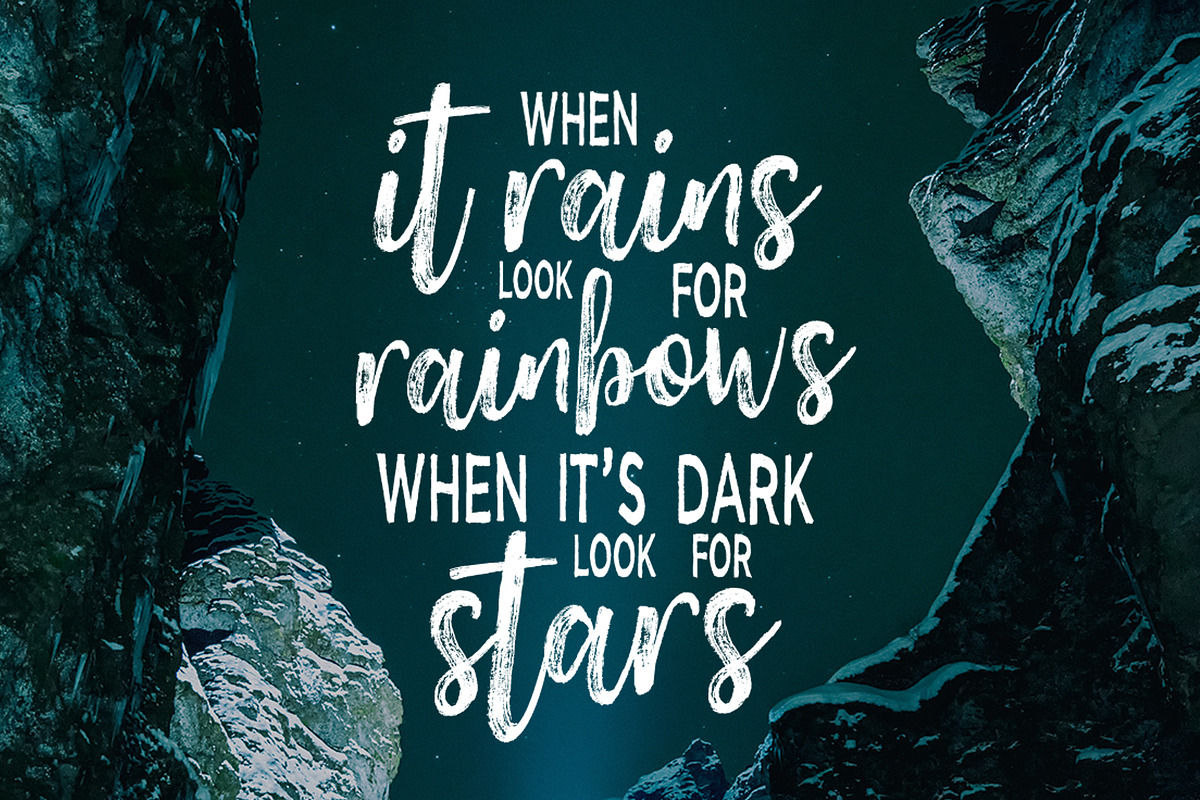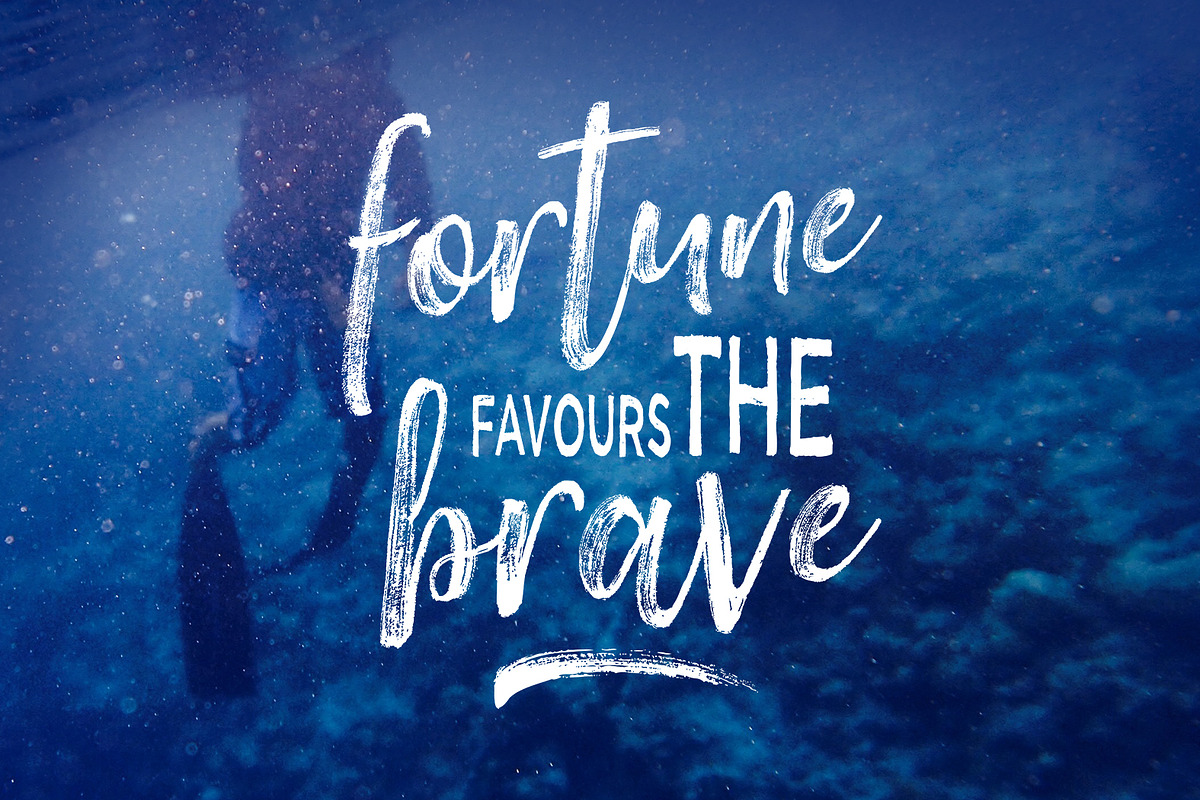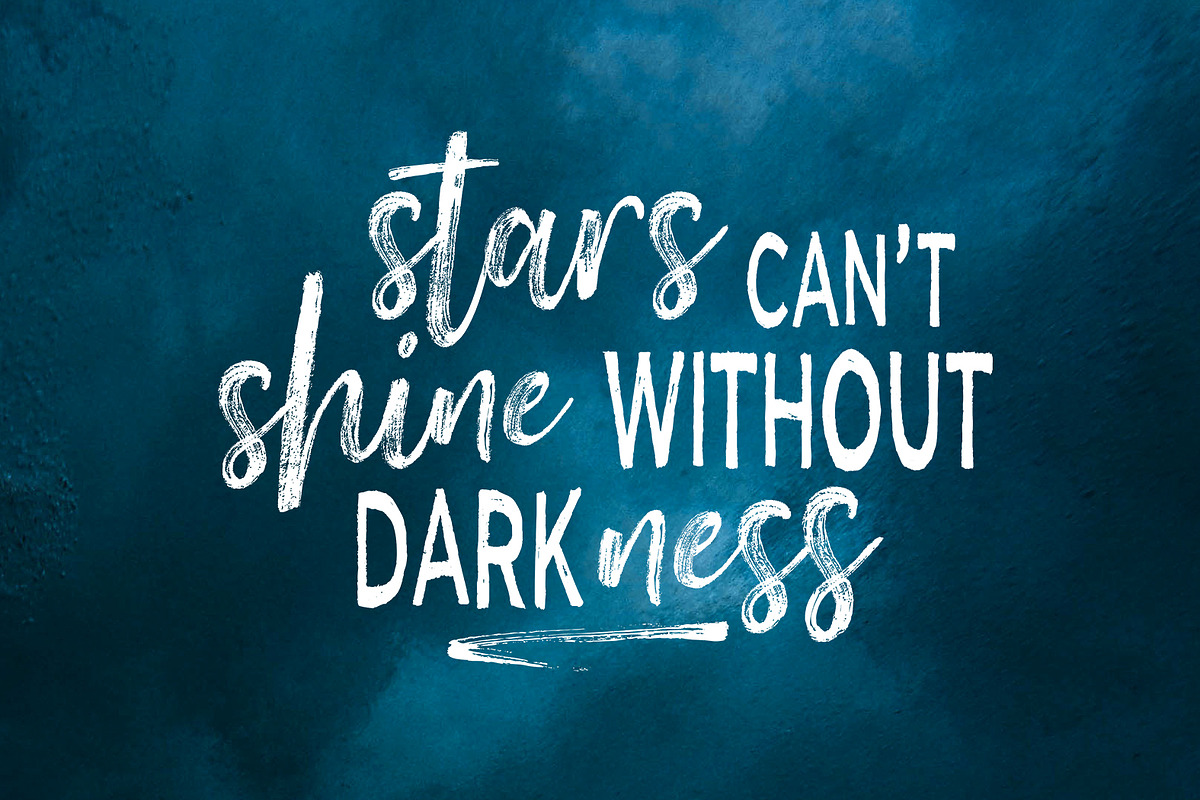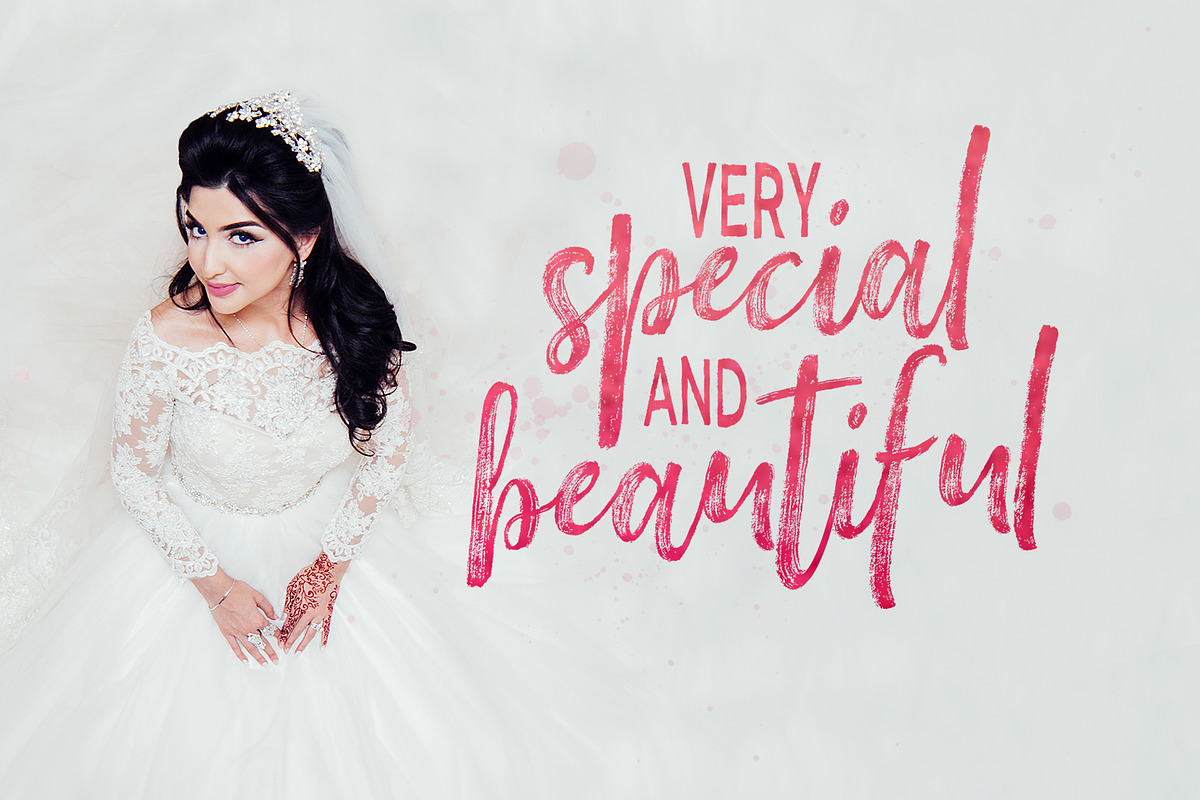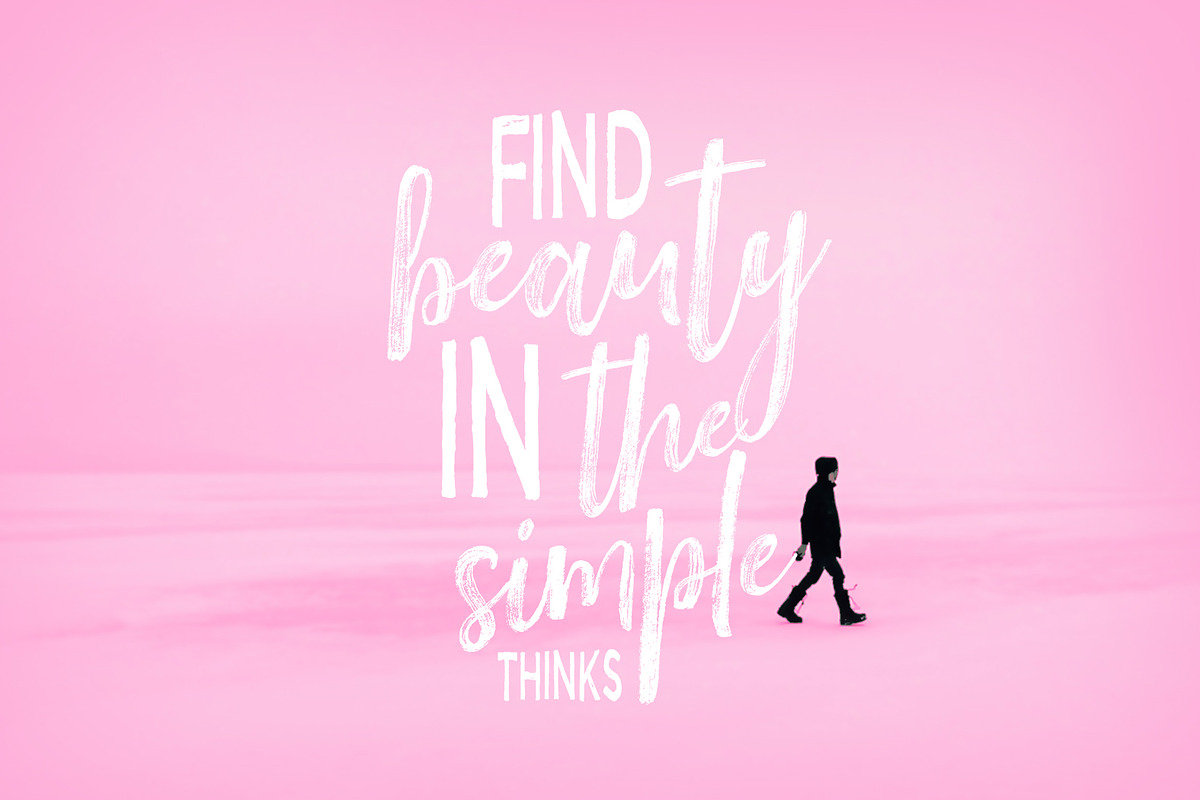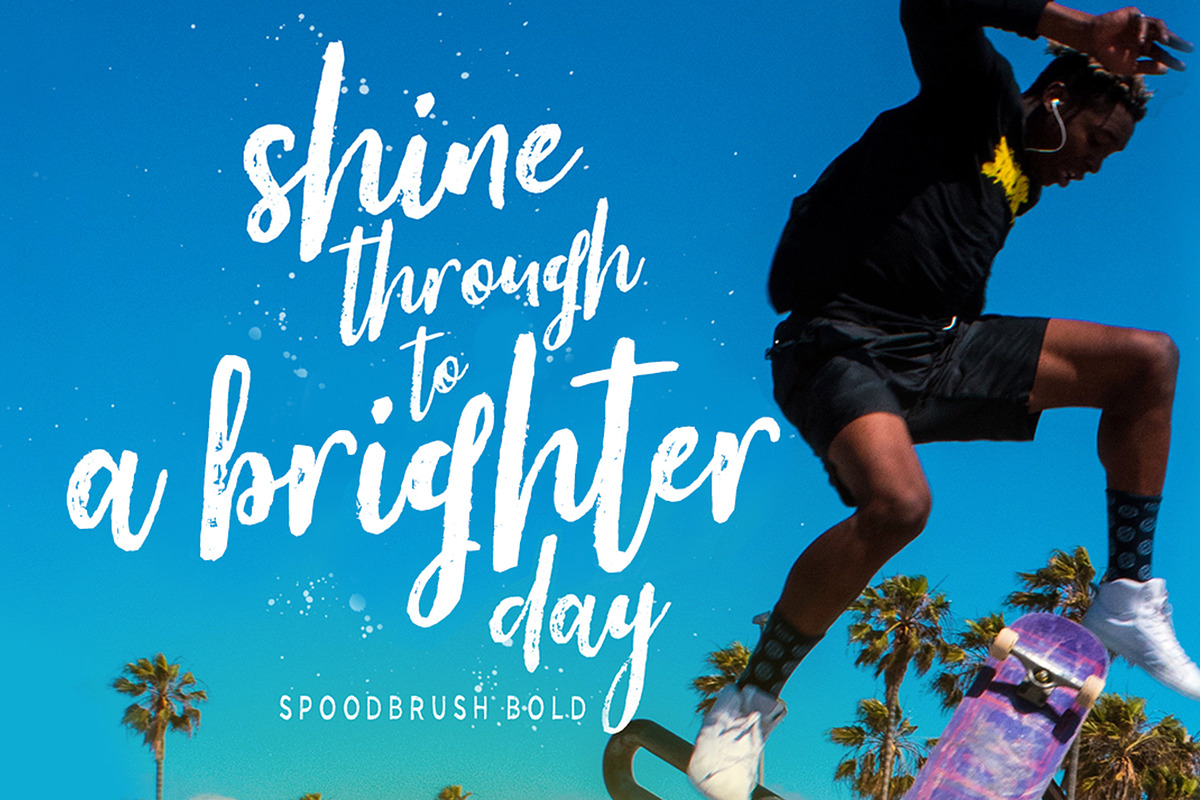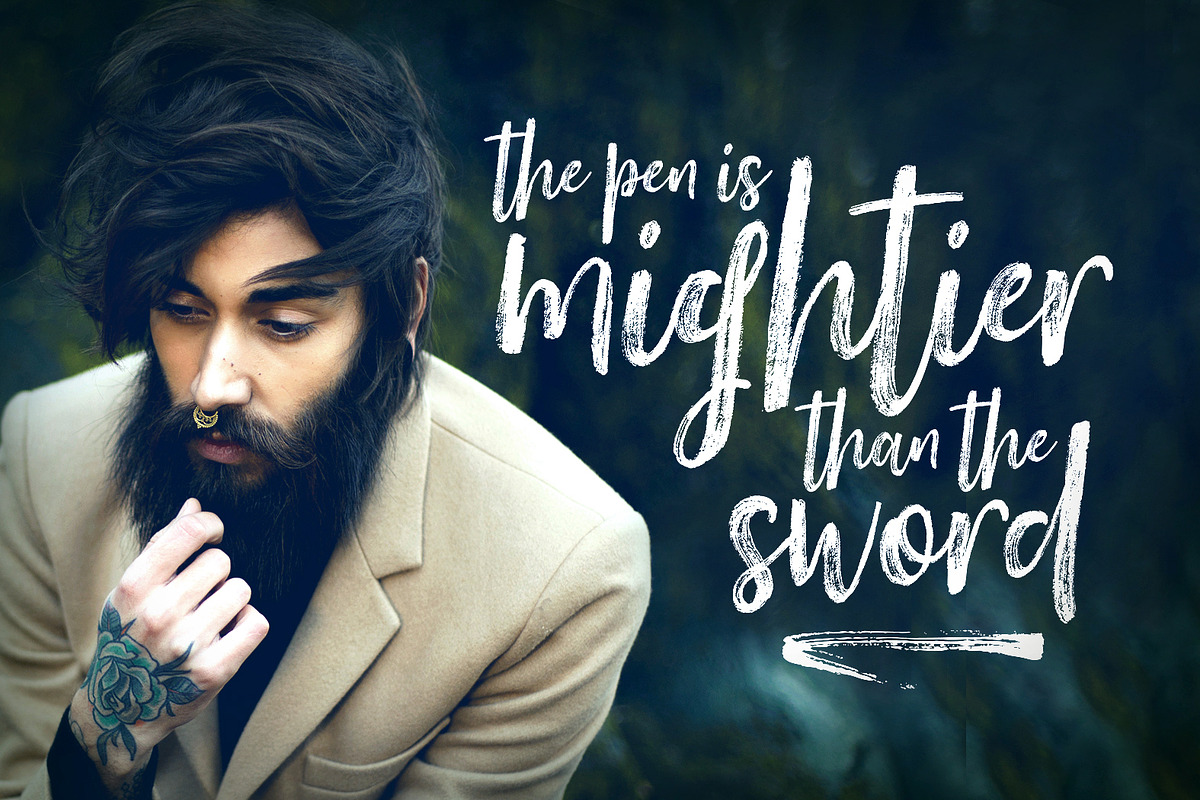
Spoodbrush - Font Duo
INTRODUCING" Spoodbrush Font Duo ! " A new font brushed textured with perfect are designed to perfectly combine with one another and allow you to create beautiful typography with a personal touch,also provided some ligatures and swashes extra and with additional Spoodbrush Sans.